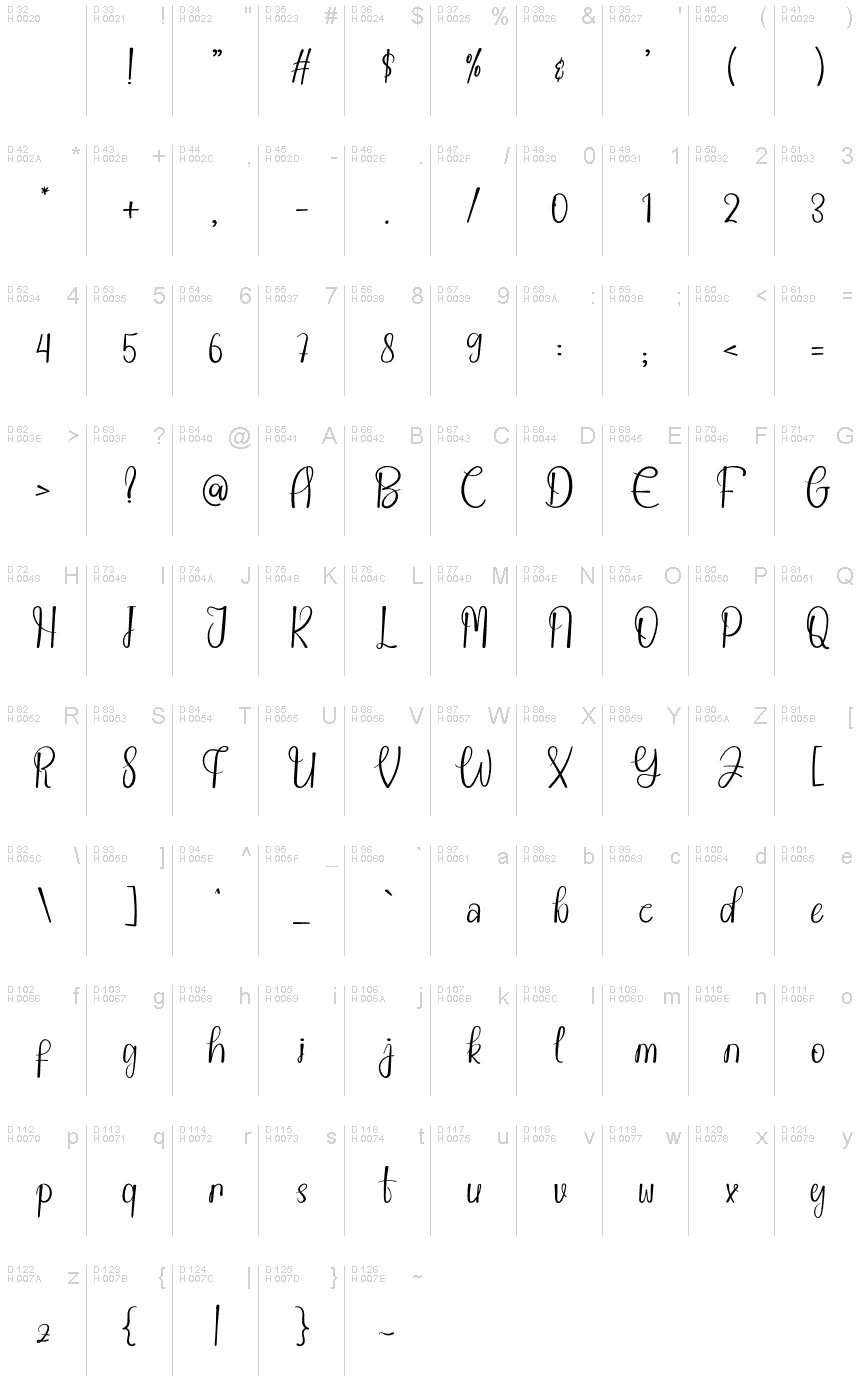
The Shine
The Shine by Inermedia Studio is a lovely script font that exudes elegance and sophistication with its semi-light weight and condensed width. This font is perfect for wedding invitations, greeting cards, and other formal event stationery. Its fluid strokes and delicate curves make it ideal for adding a touch of romance to any design project. The Shine is also suitable for fashion branding, beauty products packaging, and advertising campaigns that require a refined yet modern look. The Shine will surely shine on any website or social media post.